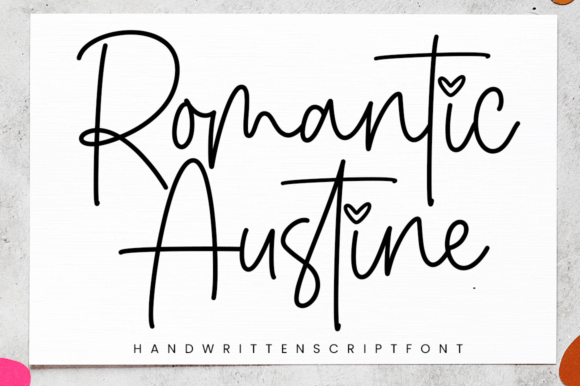
Embark on a romantic journey with Romantic Austine, a script font that captures the essence of charm and elegance. Dive into a world of exquisite beauty, where your words dance gracefully across the page, leaving a trail of timeless enchantment.
Picture your wedding invitations, adorned with the flowing curves and delicate strokes of Romantic Austine. Each letter whispers a tale of love and commitment, inviting your guests to celebrate the magic of your special day. Let your thank-you cards overflow with heartfelt gratitude, expressed in the elegant embrace of Romantic Austine's characters.
Quotes and greeting cards take on a new life with Romantic Austine, becoming cherished keepsakes that speak to the heart. Its graceful lines and playful swashes add a touch of whimsy and charm, making every message a treasured memory.
Unleash your creativity with Romantic Austine, a font that elevates your designs to new heights. Create logos that exude sophistication and style, business cards that leave a lasting impression, and any other project that craves a handwritten touch.
Romantic Austine is more than just a font; it's an expression of your individuality, a reflection of your unique style. Its PUA encoding allows for effortless access to a world of glyphs and swashes, opening up endless possibilities for customization.
Join the ranks of discerning designers and creatives who have fallen under the spell of Romantic Austine. Let it ignite your imagination and transform your creative projects into captivating masterpieces. Romantic Austine is the key to unlocking a world of elegance, charm, and enduring beauty. Embrace it, and let your words dance with grace and enchantment.